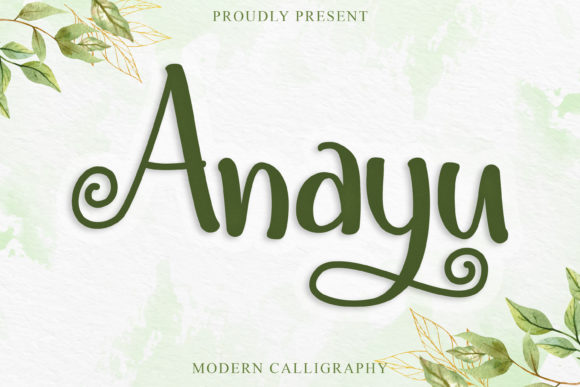
The Magical World of Anayu Font: A Designer’s Delight
I’ll never forget the moment I stumbled upon the Anayu font while working on a whimsical branding project for a boutique client. I had been searching for the perfect handwritten font that could capture the essence of her elegant and quirky brand, but nothing seemed quite right. That was until I laid eyes on Anayu – its elegant, flowing lines and uniquely shaped letters immediately stole my heart. In this article, I’ll share my journey with Anayu, its features, and how you can make the most of this beautiful font in your own design projects.
An Honest Review of Anayu Font
What I Love About Anayu ✨
- ✅ Elegant and whimsical design that adds a touch of sophistication to any project
- ✅ Highly versatile and suitable for a wide range of design applications, from branding and packaging to invitations and social media graphics
- ✅ The font’s unique shape and flowing lines make it perfect for creating eye-catching headings and titles
- ⚠️ Some users may find the font’s whimsical nature too playful for certain projects, such as corporate or formal designs
- ⚠️ As with any script font, readability may be an issue at smaller font sizes or in certain digital formats
One of the standout features of Anayu is its OpenType features and glyphs. With PUA encoding, you can easily access a wide range of glyphs and swashes to add personality and flair to your designs. Here are some tips for making the most of these features:
- Experiment with different glyph combinations to create unique and eye-catching headings
- Use stylistic alternates to add variety and interest to your text
- Don’t be afraid to get creative and try out new and unexpected glyph combinations
The Story Behind Anayu Font
Anayu was designed by a talented typographer who wanted to create a font that captured the essence of elegance and whimsy. Inspired by the flowing lines and curves of handwritten scripts, Anayu is the perfect blend of sophistication and playfulness. Whether you’re a designer, crafter, or creative hobbyist, Anayu is sure to become a favorite in your font collection.
A: PUA (Private Use Area) encoding allows font users to access a wide range of glyphs and swashes, making it easier to create unique and personalized designs.